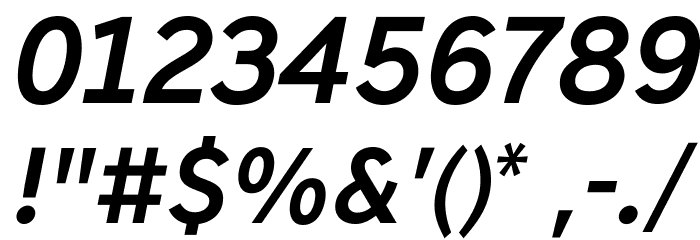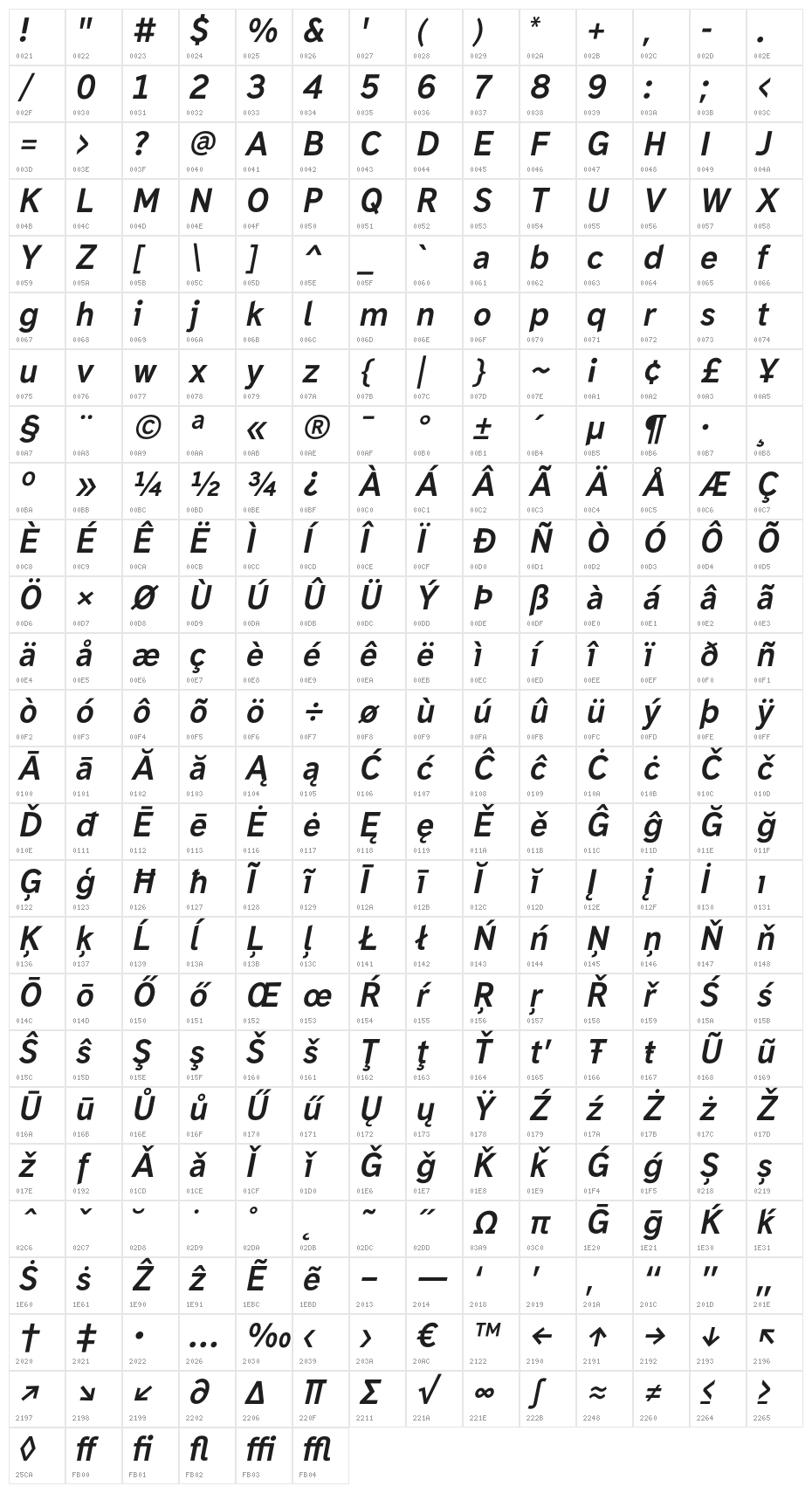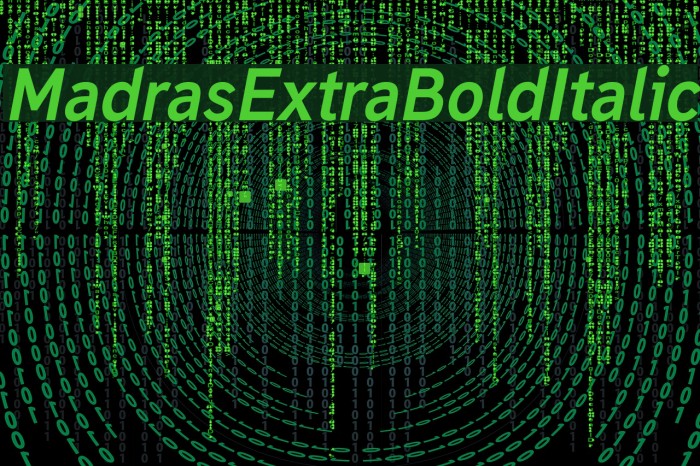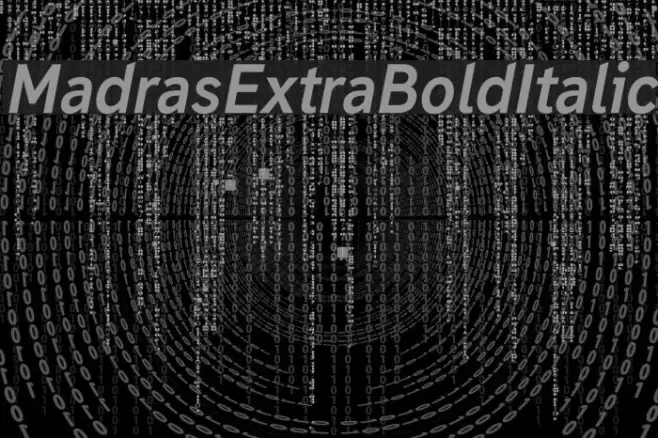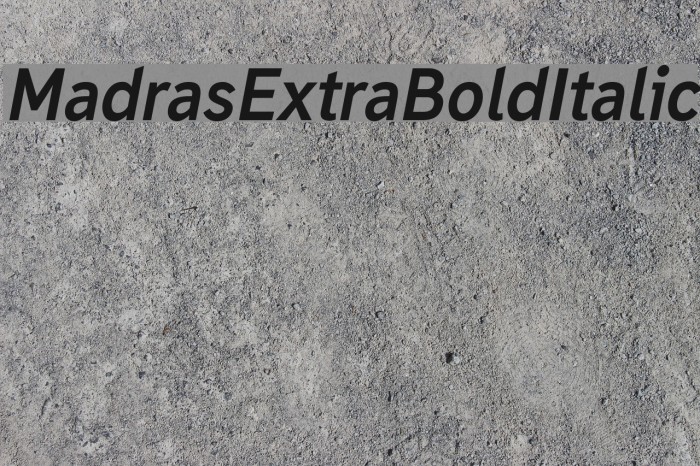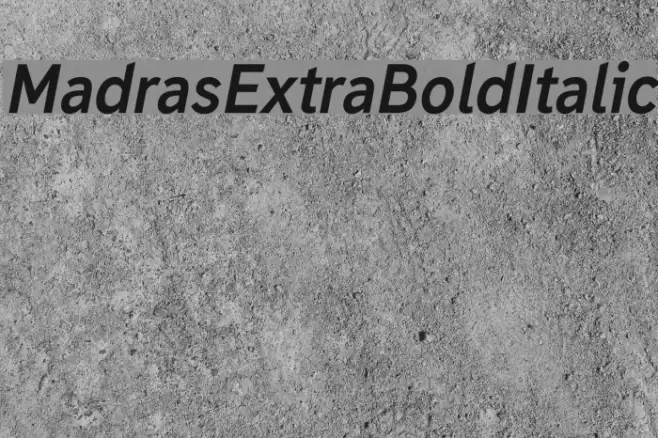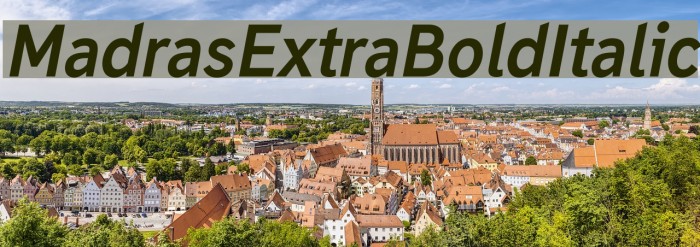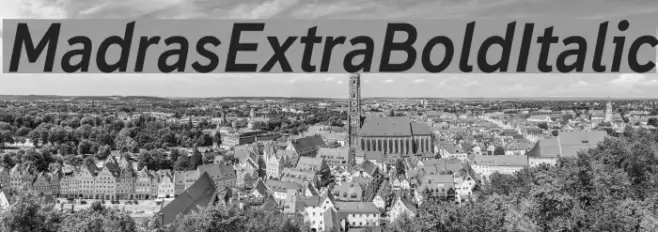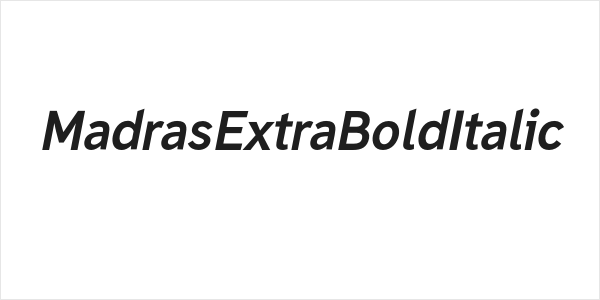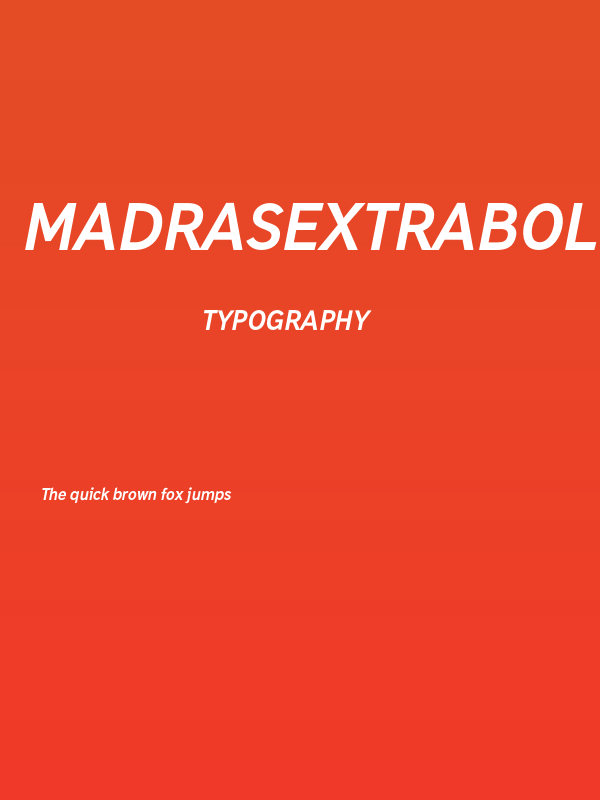
MadrasExtraBoldItalic Font
MadrasExtraBoldItalic Description
This font exhibits a bold and italicized style, characterized by its strong presence and dynamic slant. The letters are well-defined with a consistent stroke width, providing a modern and assertive appearance. The uppercase and lowercase letters maintain a cohesive look, while the numerals and special characters are crafted to match the overall aesthetic. The font's structure is clean and straightforward, making it suitable for various design applications where a bold statement is needed.